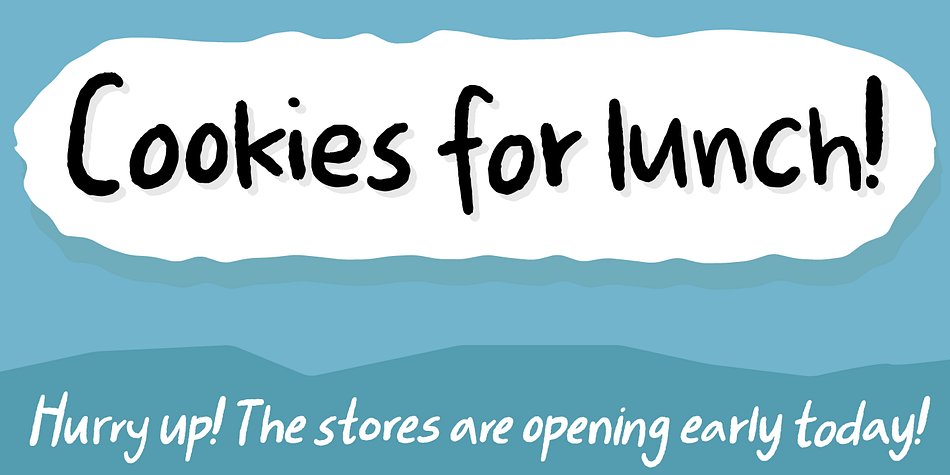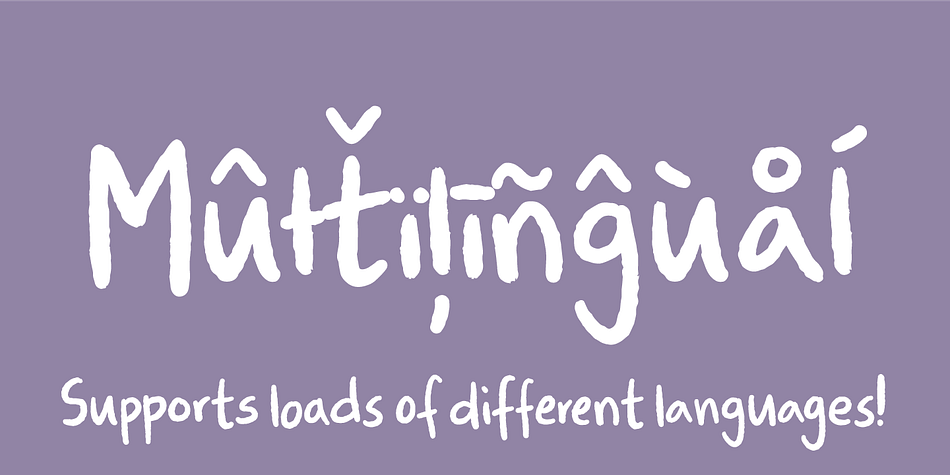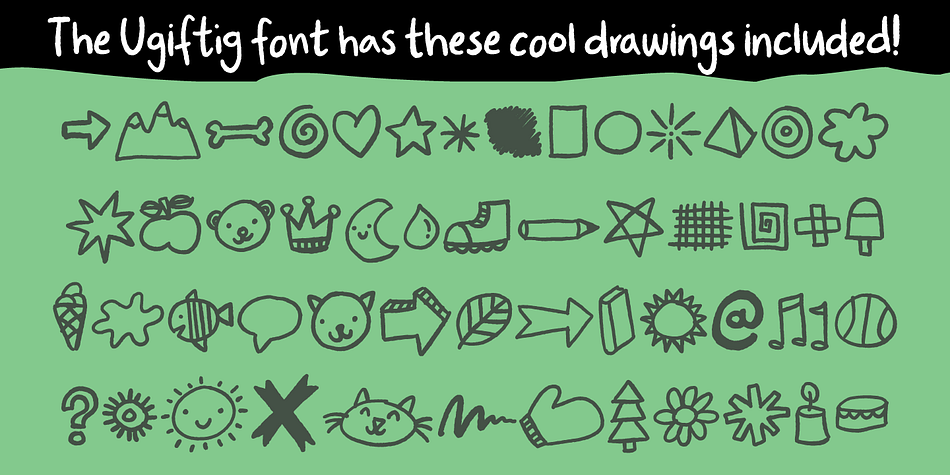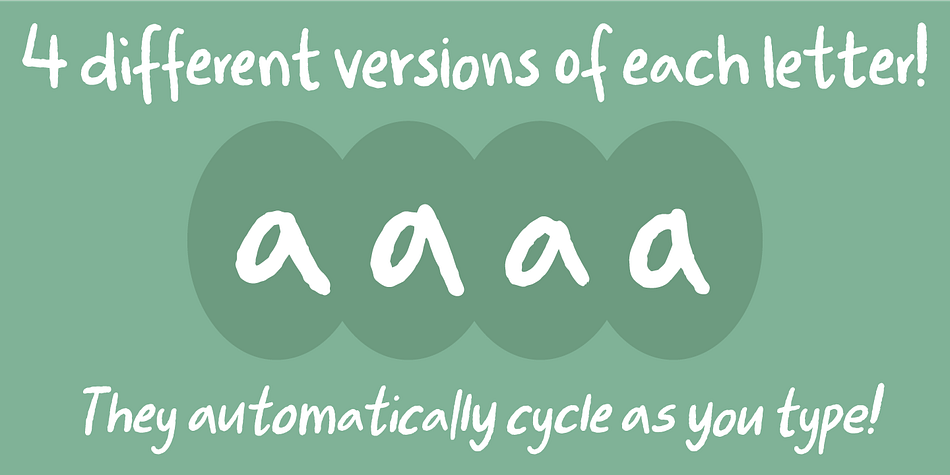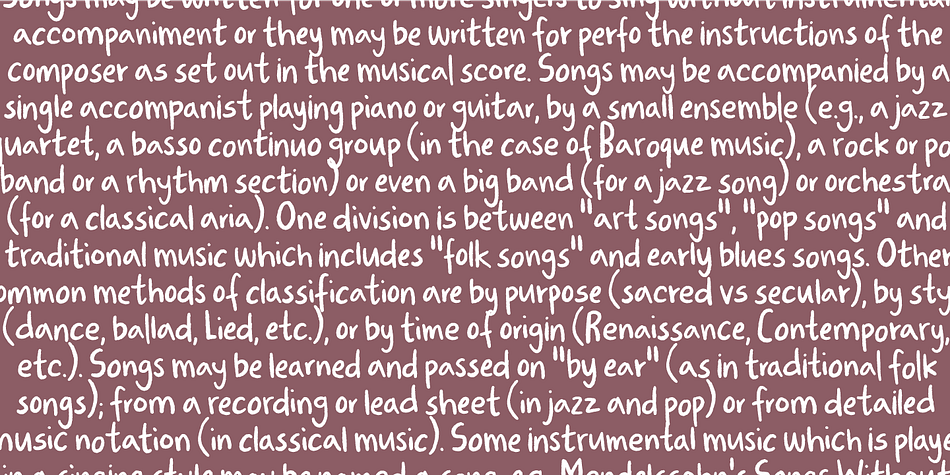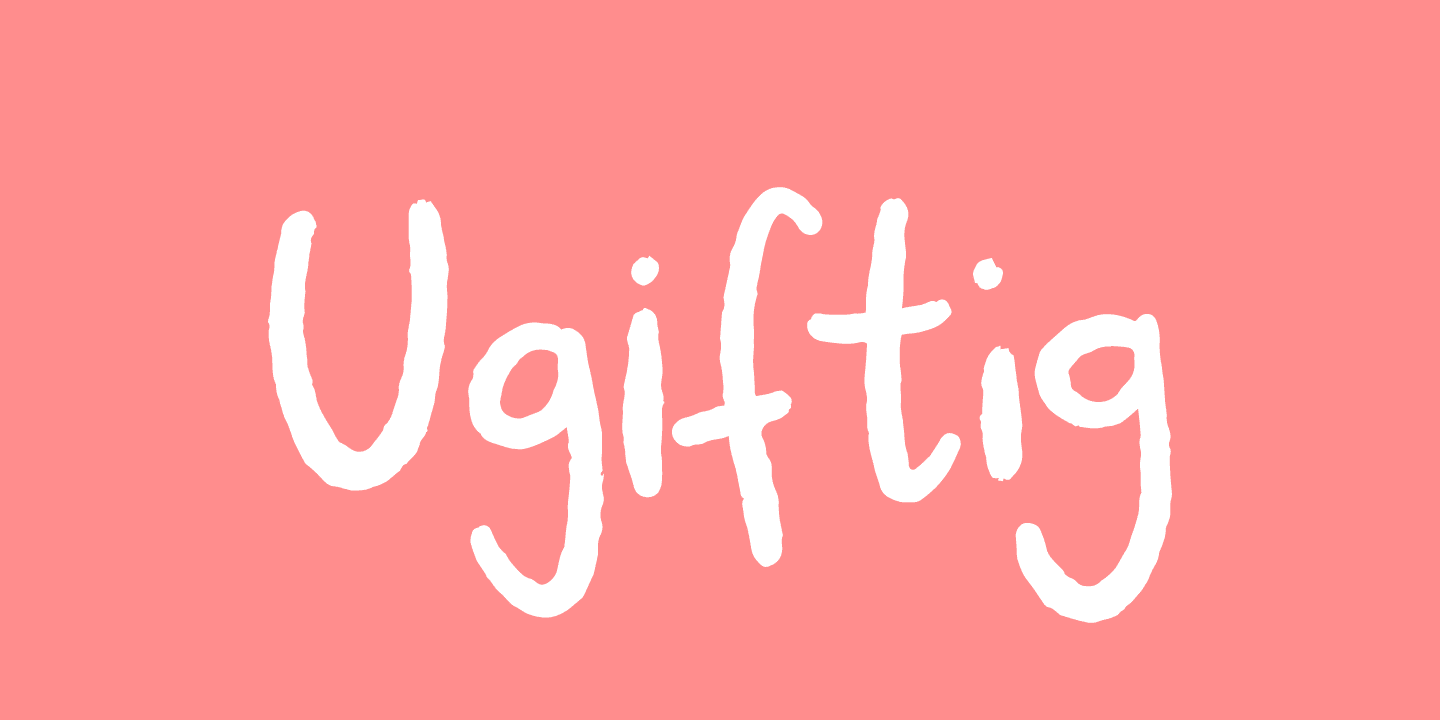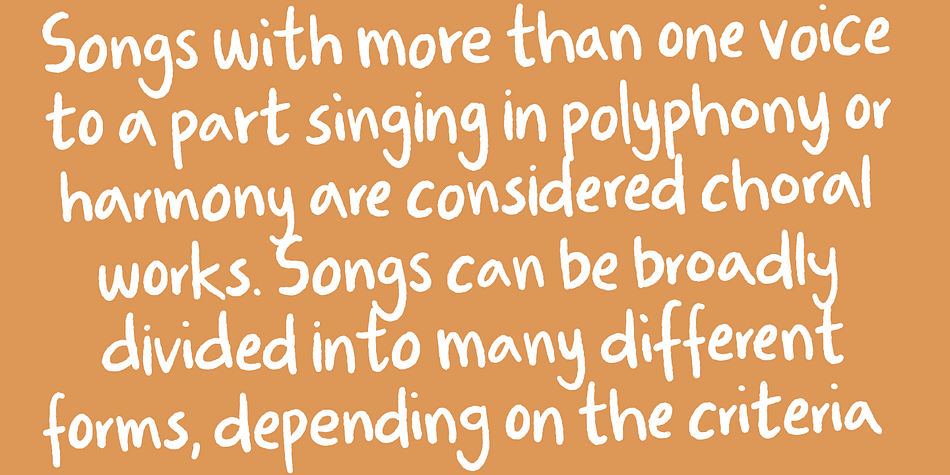
Designed by Jakob Fischer, Ugiftig is a hand drawn and dingbat font family. This typeface has three styles and was published by Bogstav.
Ugiftig means non-toxic in danish.
In some ways this font is non-toxic, because it is really legible. But looking closer at the different letters, you will find small surprises - such as 4 different versions of each letter (also in the italic version!) and the complentary drawings!